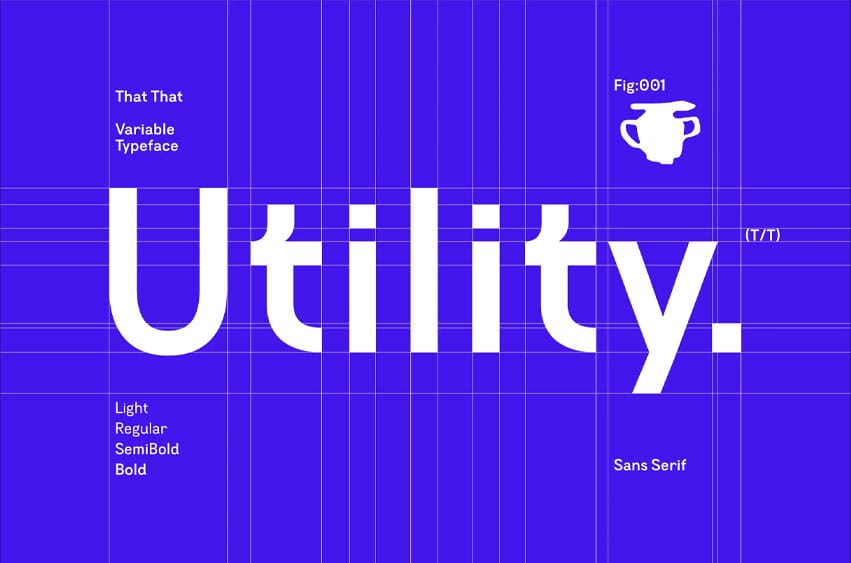
Utility Font Sans is a tech-inspired Variable sans-serif font perfect for adding a bit of playful tech to any design project.
Utility Sans includes tons of open type features like square forms, alternate letters, and case-sensitive punctuation.